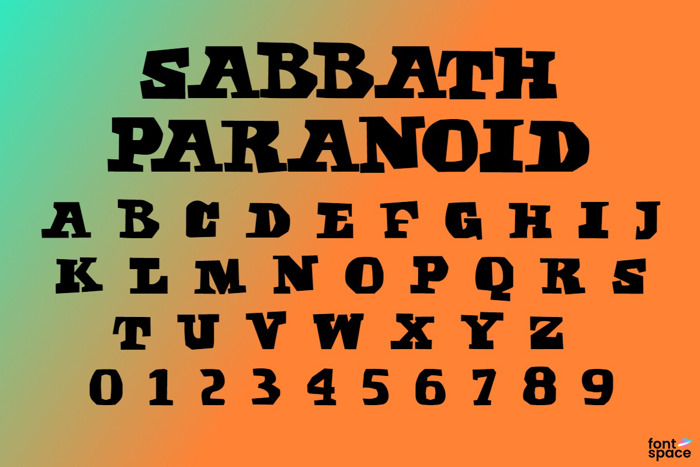
Sabbath Paranoid Font
Sabbath Paranoid is based on the letters used in Paranoid, the 1970 album of Black Sabbath. See https://k22fonts.blogspot.com/2018/10/sabbath-paranoid.html for more background info on the font.